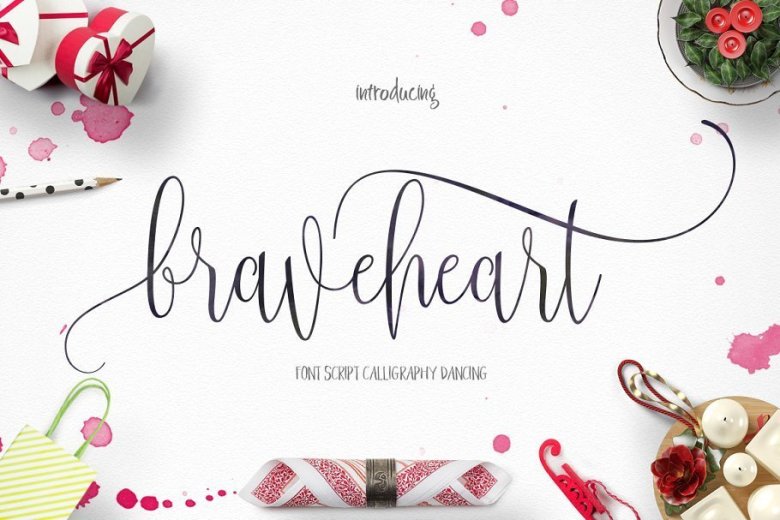
Braveheart Script Font
Introducing!!
Braveheart is Modern Calligraphy. This font was designed by handwriting, and it has a modern and unique forms of calligraphy, the writing style is very natural.
The Features of this fonts is;
• Standart ligatures
• Discretionary ligatures
• Stylistic Alternates
• Stylistic sets
Bonus font ;
• Bravelove
• Braveblood
Languages supported: Breton, Catalan, Czech, Danish, Estonian,French, German, Hungarian, Icelandic, Italian, Romanian, Scottish Gaelic, Slovak, Latvian, Lithuanian, Norwegian, English, Finnish, Polish, Portuguese, Slovenian, Spanish, Swedish, Turkish, Welsh. Basically, all european languages that are based on latin alphabet